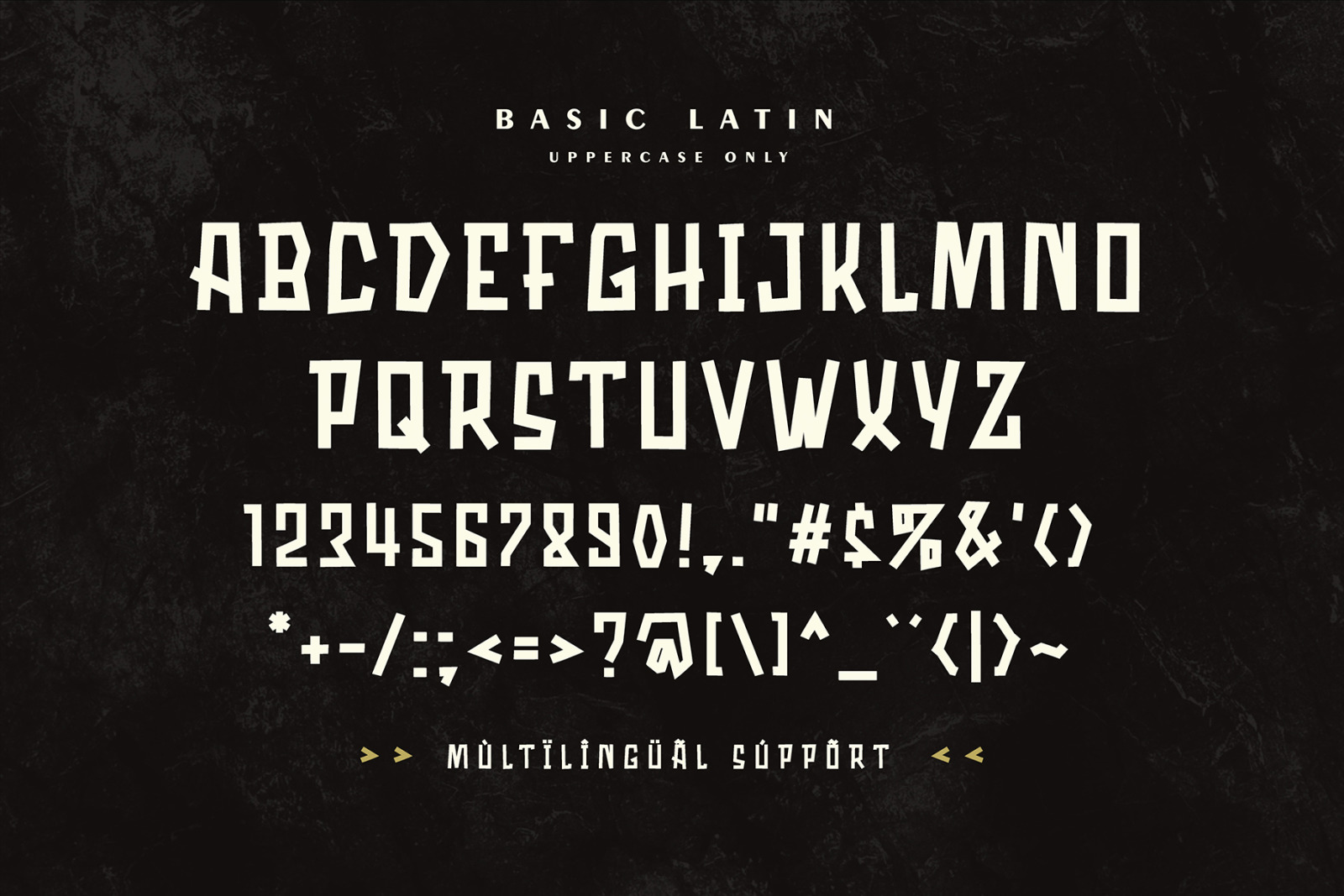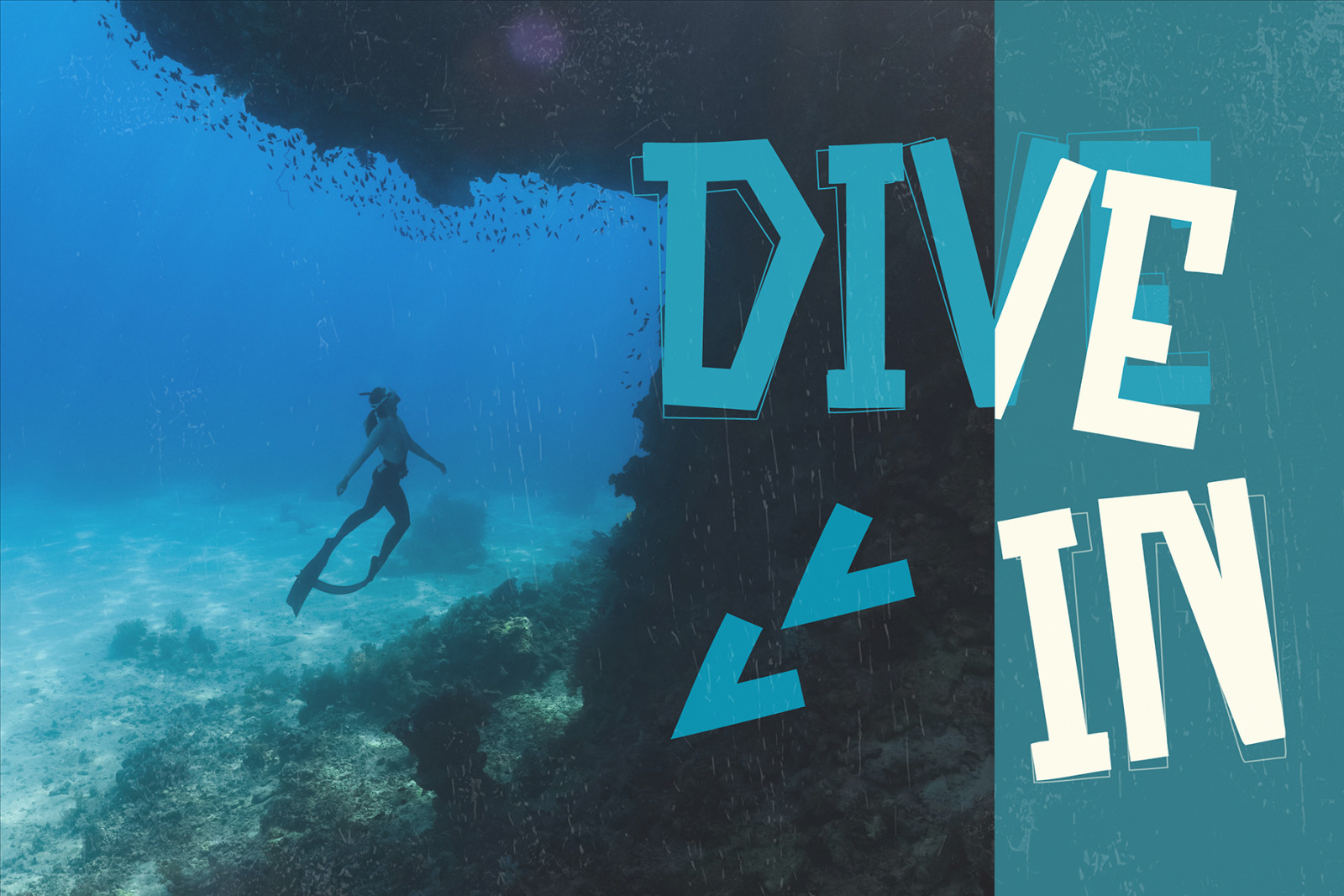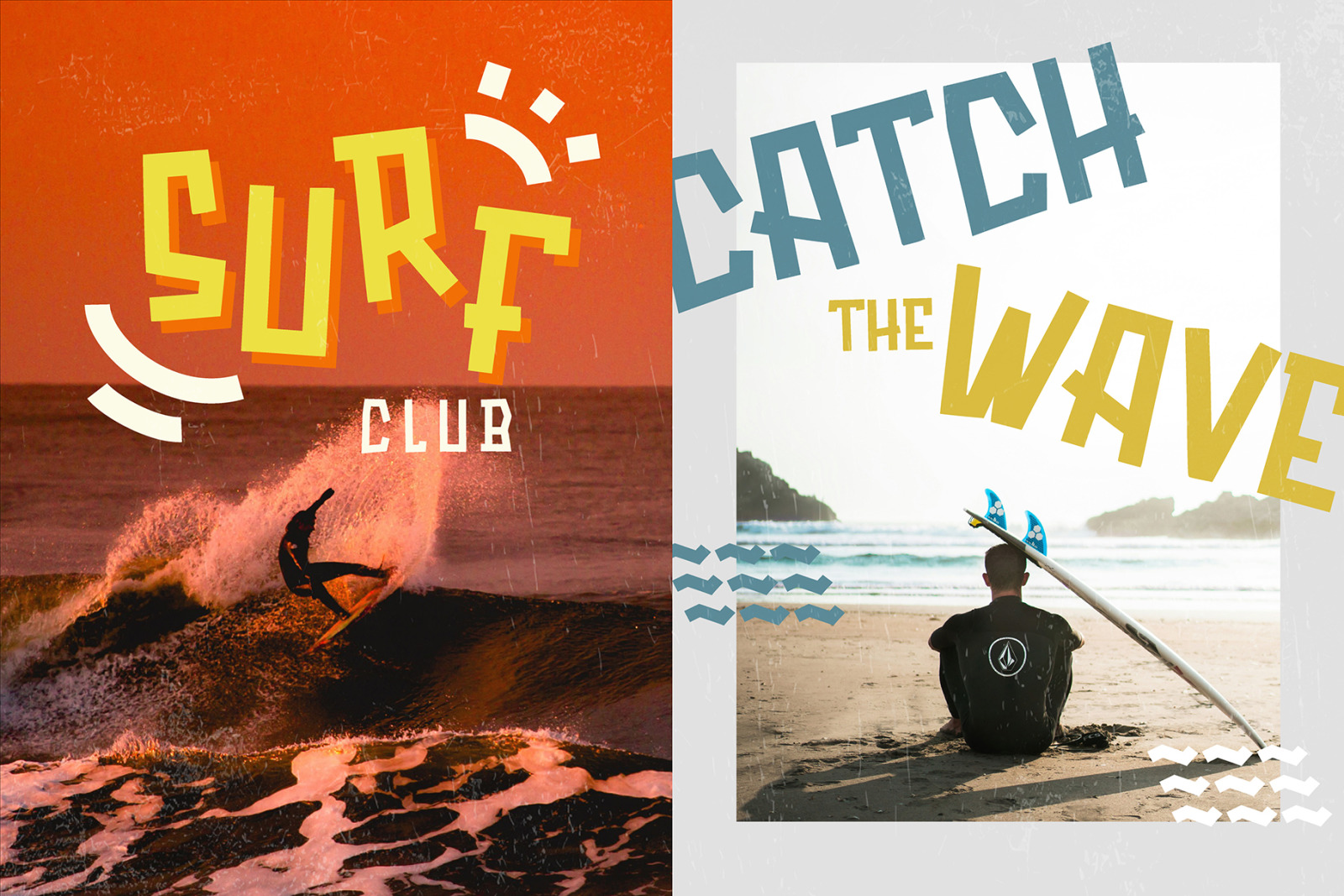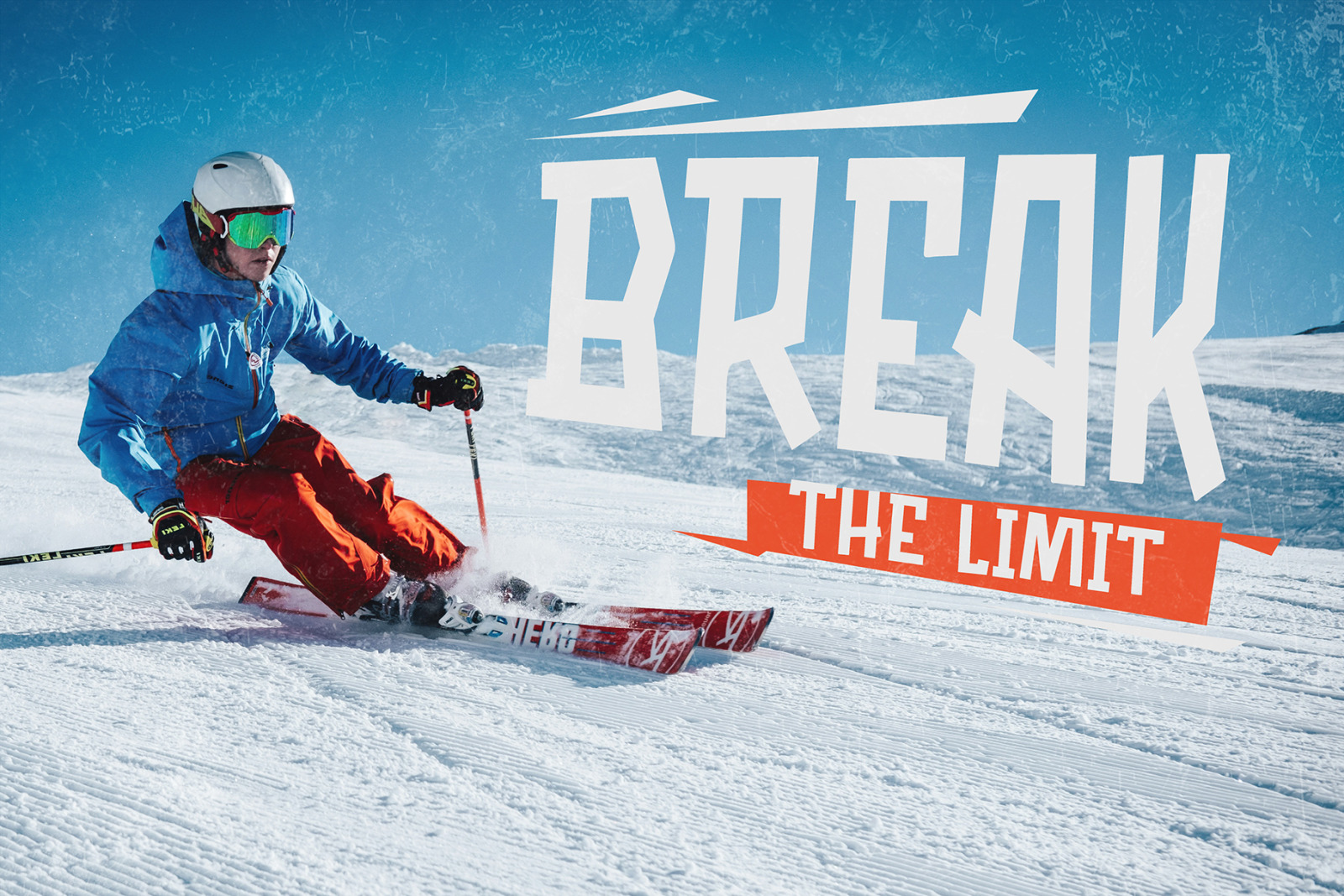
Anchorious - Modern Display Font
Anchorious Typeface: "Where Bold Meets Modern Elegance" ?
Sculpted Precision: The “Anchorious” font is a masterpiece of precision. Each letter is meticulously crafted, like a sculptor chiseling marble. Its bold strokes demand attention, while its geometric structure adds an air of sophistication.
Easy to Read: It has been designed with legibility in mind, making it easy to read even at small sizes.
Perfect for Digital and Print Media: Perfect for use in digital media, such as websites, apps, and social media platforms, as well as in print media, such as brochures, flyers, and posters. This is a unique font that will make your designs stand out from the crowd.